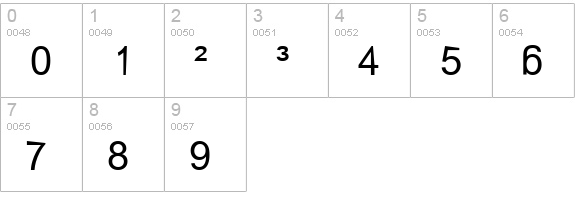
CerebralPares Falk Font Details
CerebralPares Falk font is a unique and elegant typeface that exudes sophistication and modernity. With its sleek lines and sharp edges, this font is perfect for creating eye-catching designs that demand attention. The geometric shapes and intricate details of CerebralPares Falk font make it a versatile choice for a wide range of projects, from branding to editorial design. What sets CerebralPares Falk font apart is its distinctive personality and ability to convey a sense of creativity and innovation. Whether used for headlines, logos, or body text, this font will surely make a statement and leave a lasting impression on your audience. The best part is that CerebralPares Falk font is available for free download at FontsMarket.com. So go ahead and add this stylish and sophisticated font to your collection today!